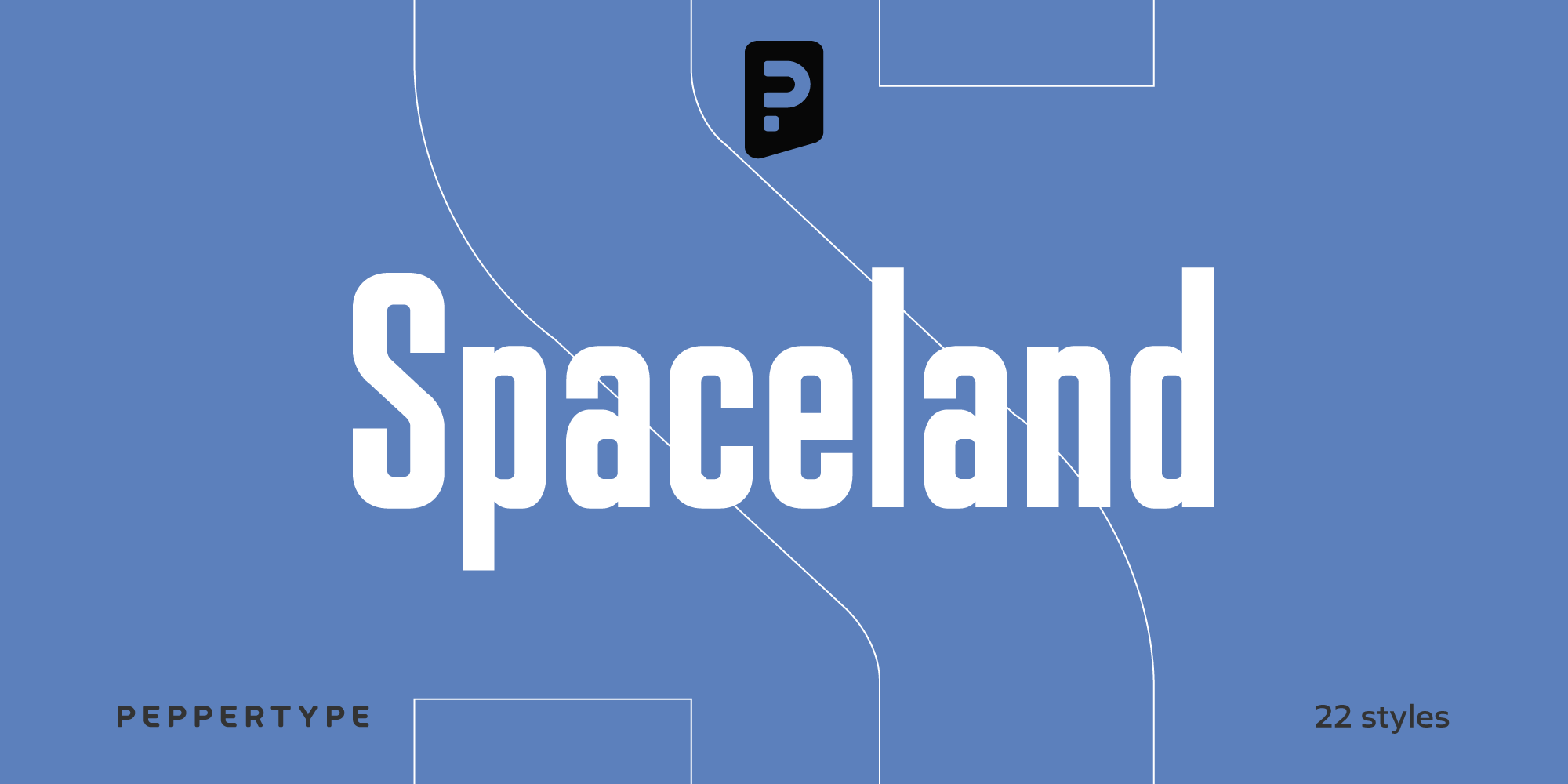
Spaceland Font is perfect for various applications including sci-fi movie titles, space exploration branding, futuristic game interfaces, astronaut training materials, planetarium displays, space technology logos, cosmic event posters, aerospace company identities, virtual reality experiences, and intergalactic marketing campaigns.
What makes Spaceland Font so exciting is its extraordinary ability to transport viewers beyond Earth's atmosphere through pure typographic innovation. This cosmic typeface features sleek, otherworldly letterforms with stellar spacing and astronautical details that evoke the infinite mysteries of deep space and the cutting-edge technology of space exploration. The font's celestial character and interstellar aesthetic make it ideal for brands that want to convey innovation, exploration, and limitless possibilities to audiences who dream of space travel and appreciate scientific advancement.
Spaceland Font family includes multiple weights and styles: Light, Regular, Medium, Bold, Black, Stellar, Cosmic, Condensed, and astronomically designed Italic variants. Each family member maintains the font's signature spacefaring spirit while offering different levels of visual impact and stylistic flexibility for diverse space-themed and futuristic applications.
The Spaceland Font Free Download provides designers with access to a space-inspired typeface that excels in technology and entertainment markets. Whether you're creating aerospace brand identities, designing sci-fi gaming materials, or developing futuristic digital experiences, this font delivers the cosmic aesthetic needed to captivate space enthusiasts and tech-forward audiences. Its interstellar styling and scientific essence make it particularly effective for space agencies, astronomy organizations, and futuristic technology companies.
Typography specialists will recognize the precise engineering and cosmic inspiration in Spaceland Font's construction. The font features aerodynamically crafted letterforms with stellar spacing, optimized for both Earth-based displays and futuristic interfaces, ensuring excellent readability while maintaining its extraterrestrial character. From mission control displays to space tourism brochures, this typeface maintains its cosmic appeal and technological sophistication across all galactic contexts.
For space-themed web designers, Spaceland Font provides outstanding performance in futuristic digital environments and interactive space experiences. The font's technical specifications are optimized for advanced displays and virtual reality applications while preserving the sleek, cosmic edges that define its interstellar character. Its versatility makes it suitable for both static space content and dynamic astronomical experiences.
Creative professionals working in aerospace, entertainment, gaming, and technology sectors will find Spaceland Font to be an essential tool for projects requiring cosmic visual communication. The font's ability to convey exploration, innovation, and infinite possibilities makes it invaluable for brands targeting space enthusiasts and future-focused demographics.